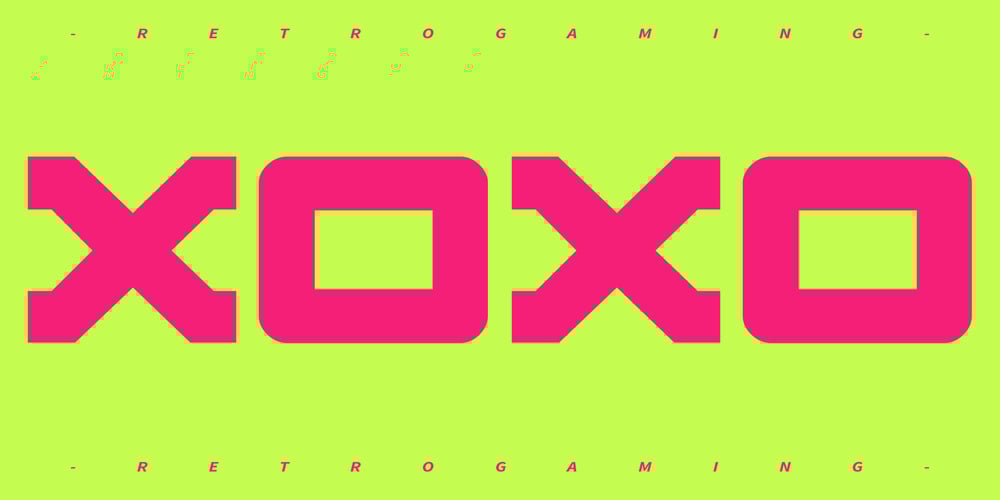
Aiko
Aiko font
Aiko Font Family was designed by Alex Haigh and published by HyperFluro. Aiko contains 2 styles and family package options. Aiko is a Y2K TechnoWave retro font, encapsulating the vibrant and futuristic aesthetics of the early 2000s. It draws heavy inspiration from the sleek and dynamic typography seen in old PlayStation games, particularly the iconic titles from the Wipeout series. This font evokes the era’s fascination with digital revolution, characterized by bold lines, geometric shapes, and a sense of motion and speed.